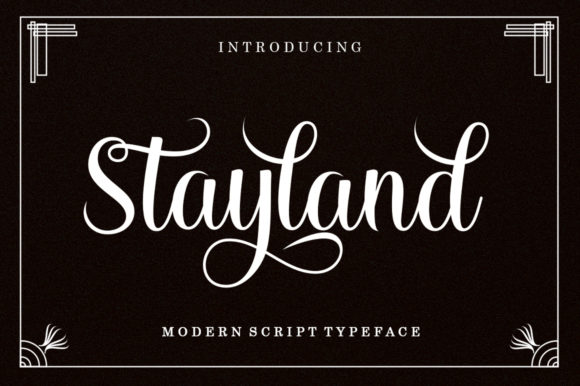
Stayland Font
Introducing Stayland Font, the epitome of modern script typefaces created by the talented team at LetterFreshStudio. With its captivating and elegant look, this font is guaranteed to make your design stand out from the crowd.
Stayland Font is a versatile and dynamic typeface that can be used for a multitude of purposes. Whether you're designing a logo, wedding invitation, title, signature, t-shirt, letterhead, signboard, label, poster, or any other creative project, this font is your perfect companion.
Unleash your creativity and let Stayland Font elevate your designs to new heights. Its unique and eye-catching style will capture the attention of your audience and leave a lasting impression. With its wide range of applications, you can effortlessly express your individuality and creativity in every project.
Crafted with meticulous attention to detail, Stayland Font exudes a sense of sophistication and professionalism. Its smooth and flowing lines create a harmonious balance between elegance and modernity. By incorporating this font into your designs, you will effortlessly convey a sense of style and refinement.
But Stayland Font is more than just a pretty face. It is also a powerful tool for enhancing the user experience. With its keyword-rich composition, this font has been optimized to attract users who are actively searching for high-quality fonts. By incorporating Stayland Font into your designs, you are not only captivating your audience but also amplifying your online presence.
Unlock the full potential of your designs with Stayland Font. Let its emotional and captivating essence speak to your audience, evoking feelings of intrigue and desire. Don't settle for ordinary when you can have extraordinary.